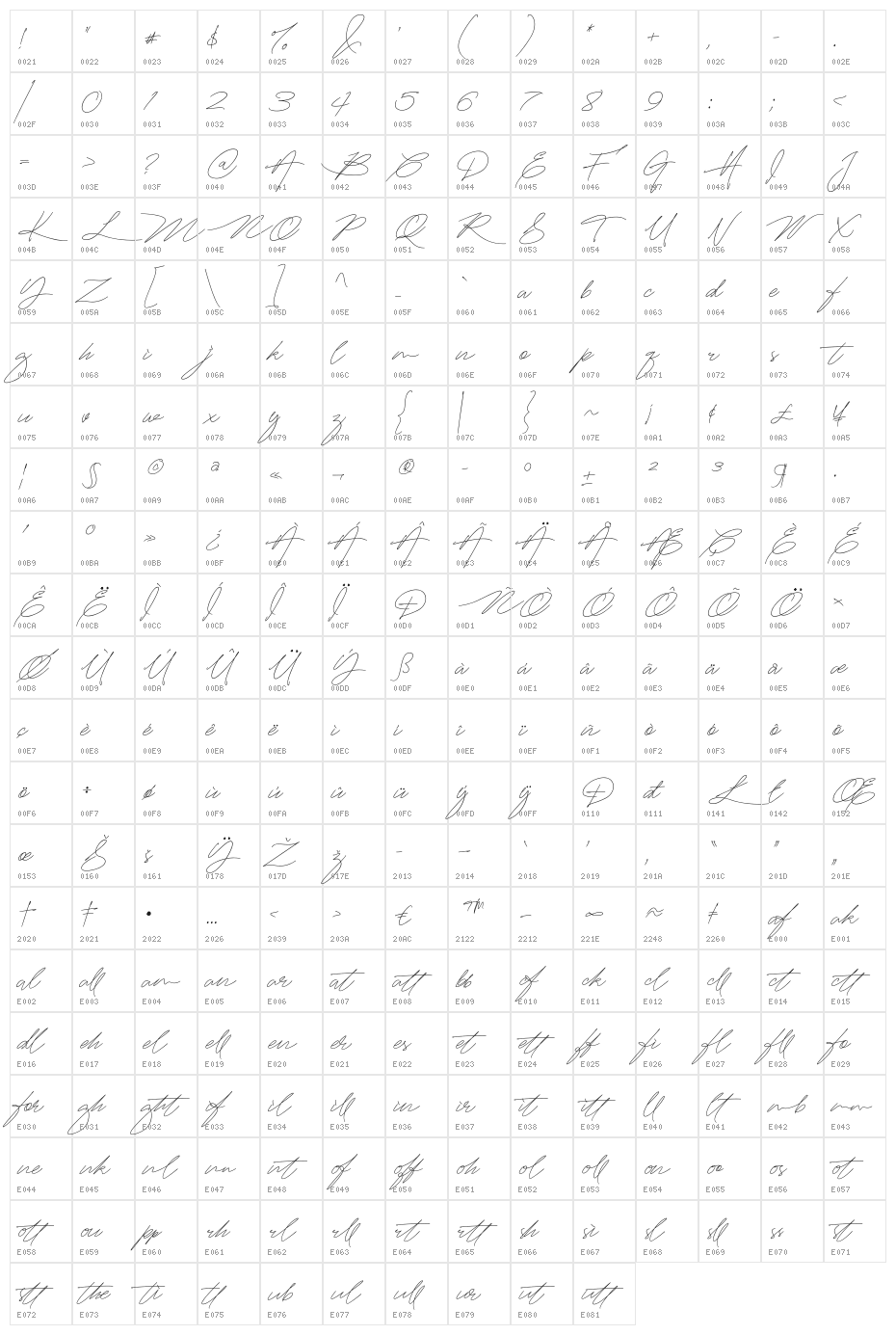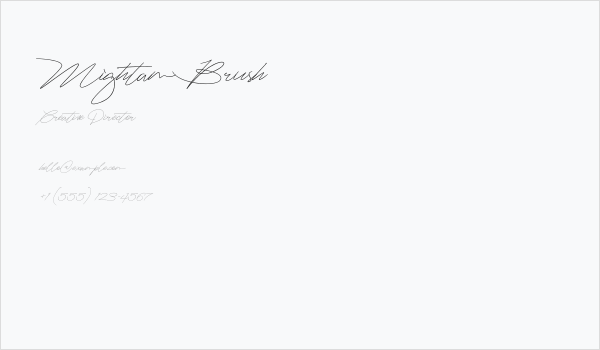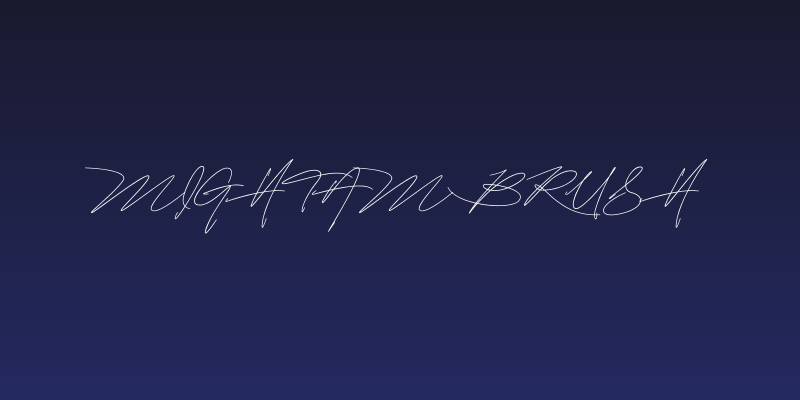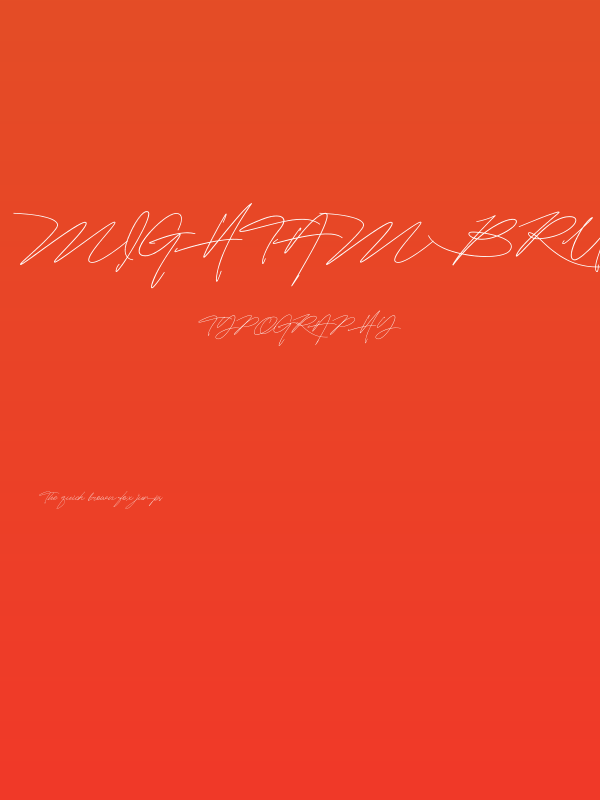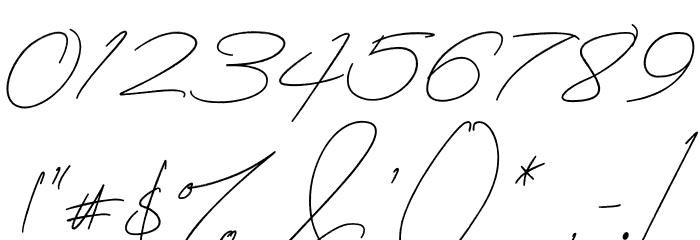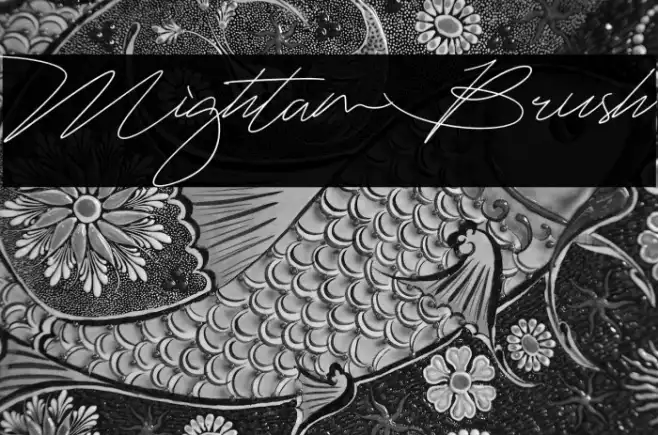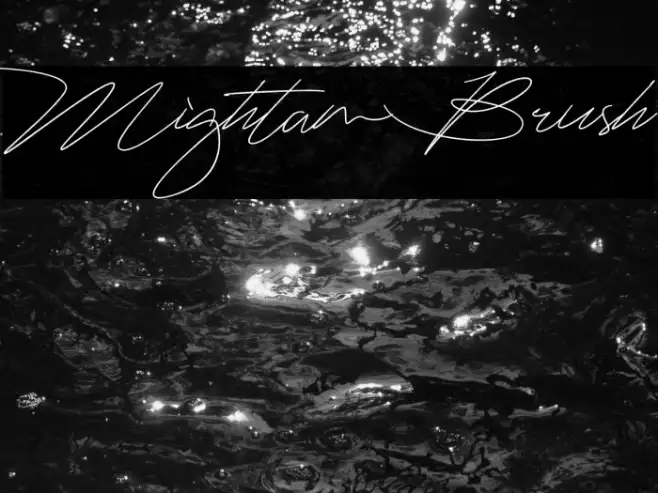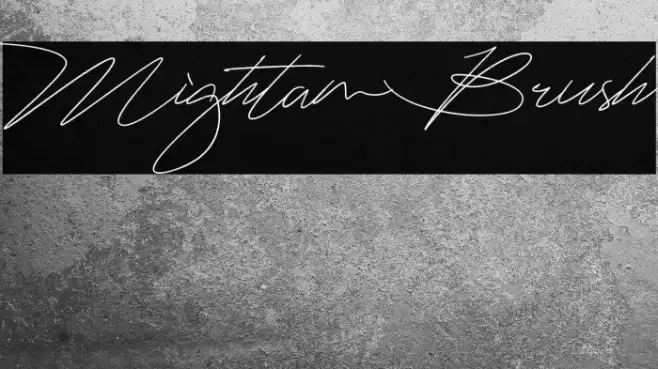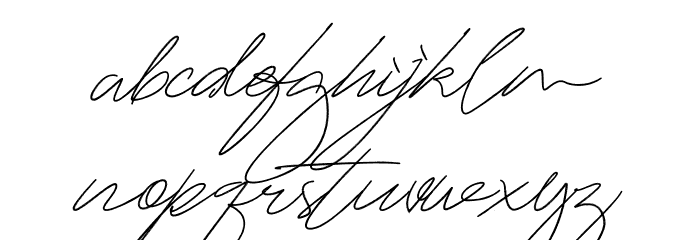
Mightam Brush Font
Mightam Brush Description
This font features a dynamic and fluid brush script style, characterized by its elegant and flowing letterforms. The strokes are smooth and continuous, giving it a handwritten appearance that exudes a sense of personal touch and creativity. The uppercase letters are bold and sweeping, while the lowercase letters maintain a consistent flow, enhancing readability. The numerals and special characters are crafted with the same attention to detail, ensuring a cohesive look across all elements. This font is ideal for projects that require a personal and artistic flair, such as invitations, branding, and creative design work.
| Use Case | Logos, Invitations, Creative Design |
| Proposed Projects | Ideal for invitations, branding, creative design work, and any project requiring a personal touch. |